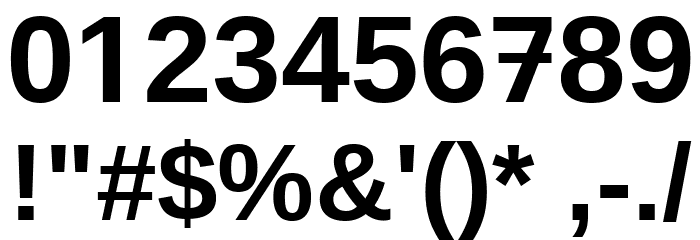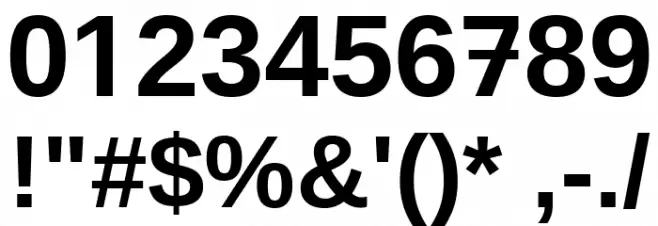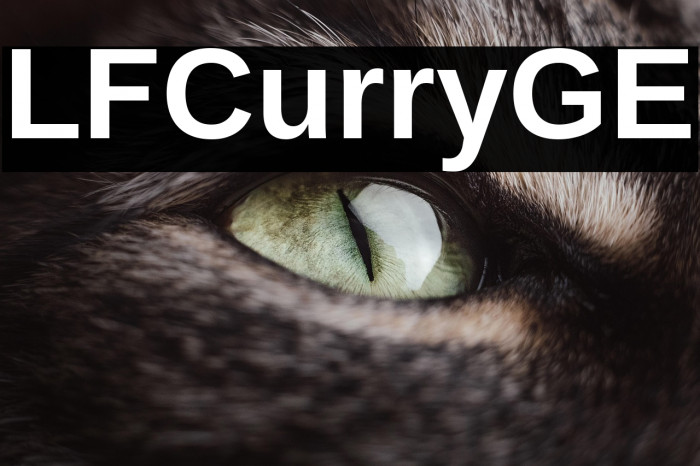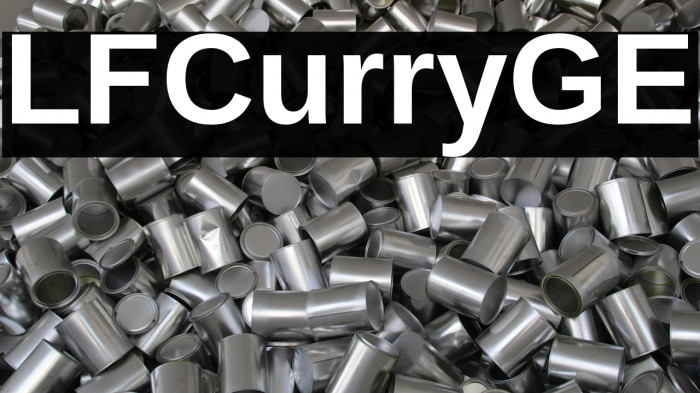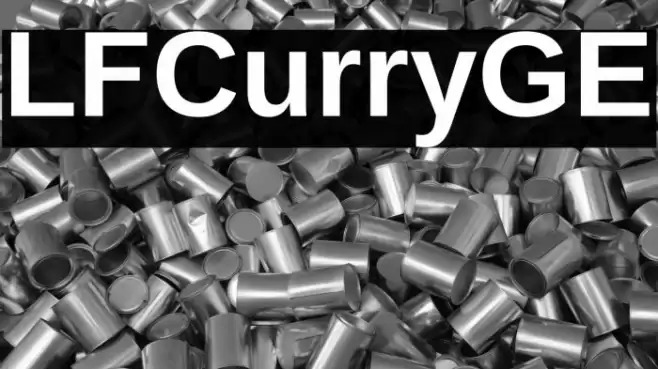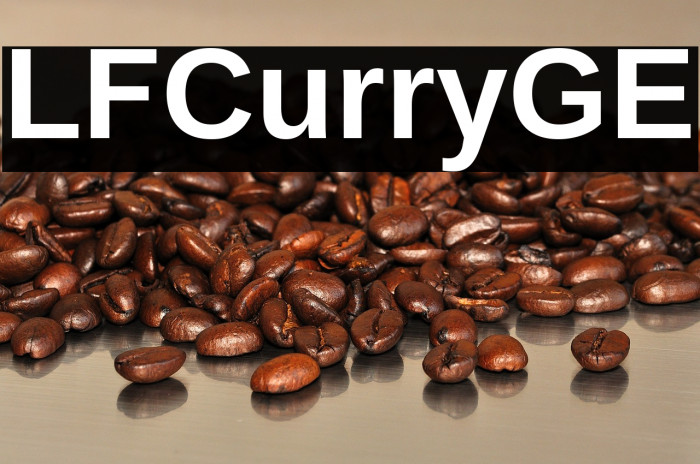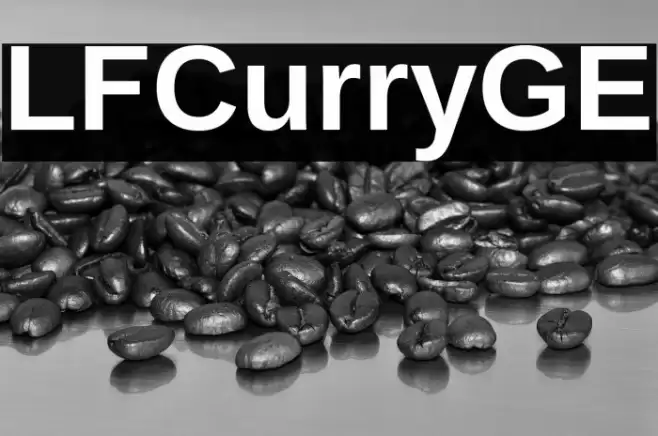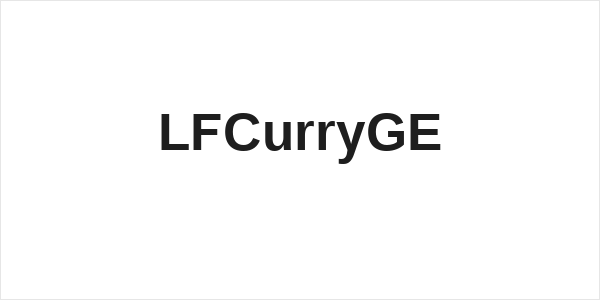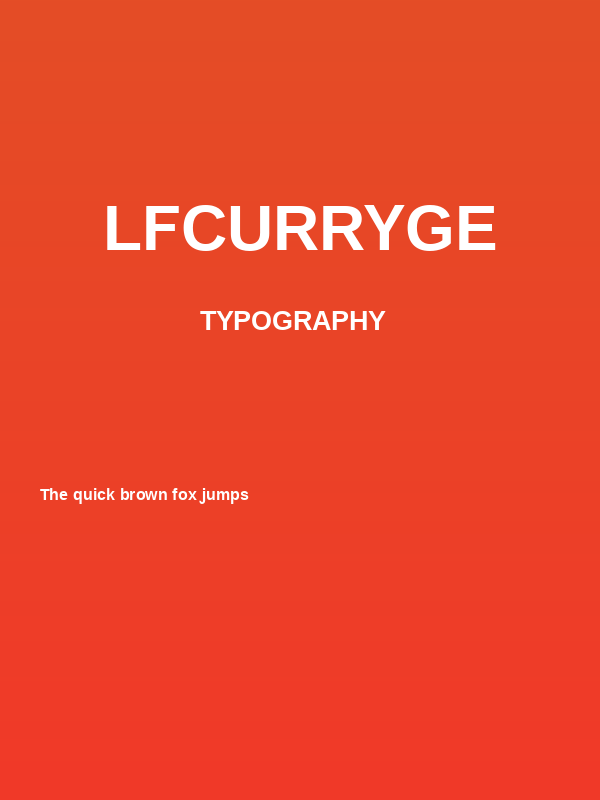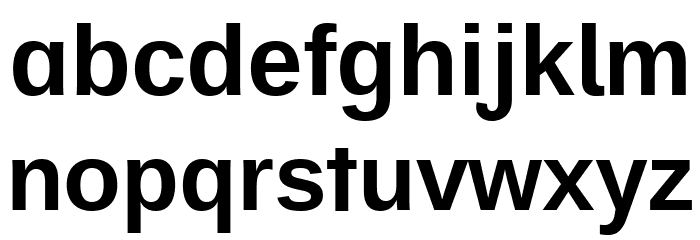
LFCurryGE Font
LFCurryGE Description
This font features a clean and modern sans-serif style with uniform stroke widths, providing a straightforward and professional appearance. The characters are well-proportioned, offering excellent readability across both uppercase and lowercase letters. The numerals are clear and distinct, ensuring easy recognition. Special characters are included, maintaining the font's cohesive design. Its simplicity and clarity make it versatile for various applications, from digital to print media.
| Proposed Projects | Ideal for corporate branding, web design, user interfaces, and print media such as brochures and flyers. |